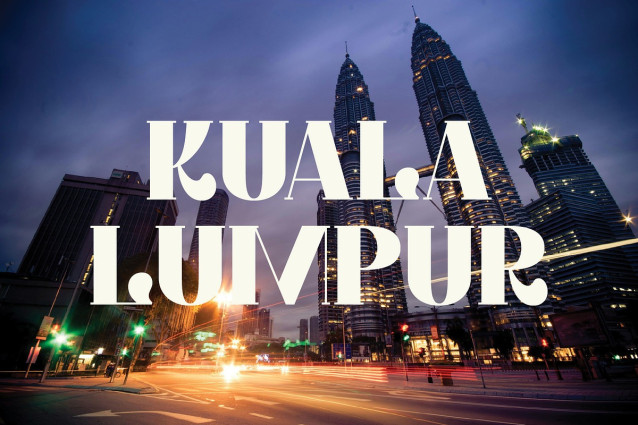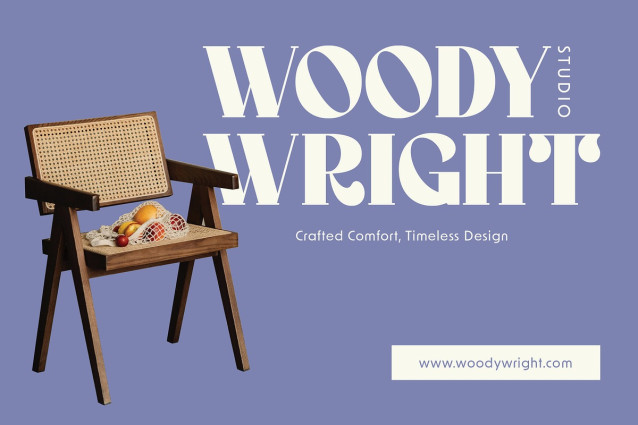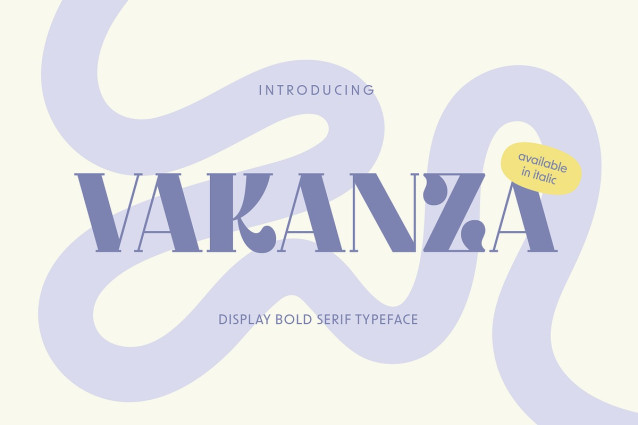
Vakanza Font
Vakanza Font, the unique, bold, and elegant retro display serif font that brings a touch of vintage charm to any project. Perfect for posters, festivals, greeting cards, merchandise, packaging, magazines, and more, Vakanza’s distinctive style captures the essence of classic elegance with a modern twist. Its thick, stylish design ensures every piece stands out with a timeless and sophisticated flair.
Vakanza includes a complete set of alphabets, numbers, and basic punctuation, along with an italic version for each character, providing versatility and flexibility in your creative work. Available in TTF, OTF, and WOFF formats, Vakanza ensures compatibility across various platforms and devices. Elevate your projects with the sophisticated charm of Vakanza and create designs that leave a lasting impression.